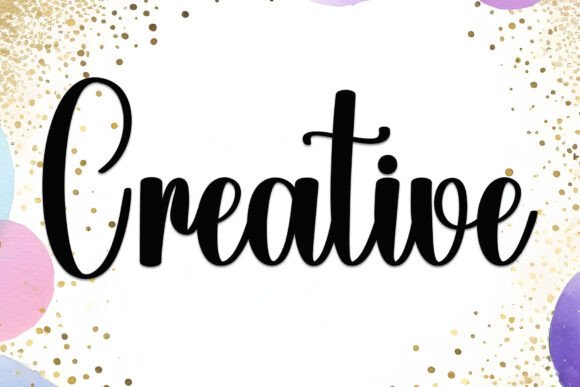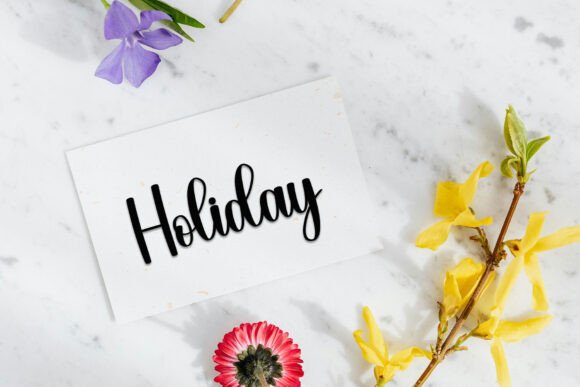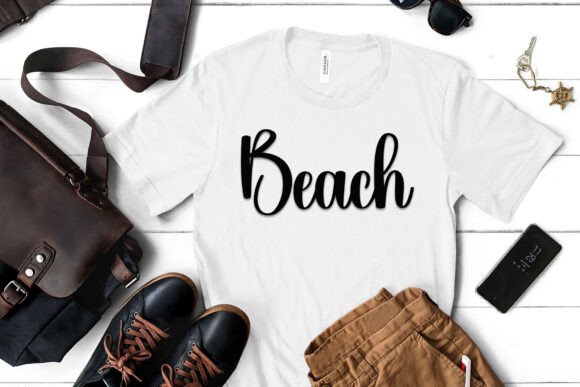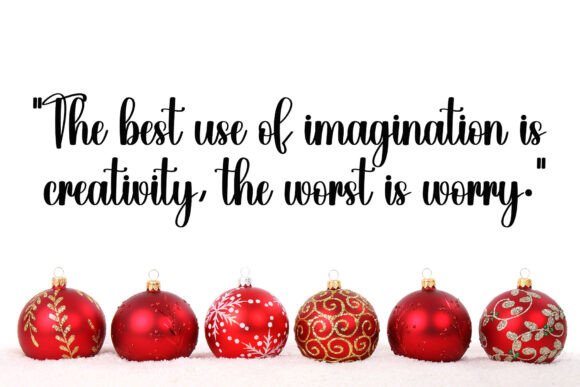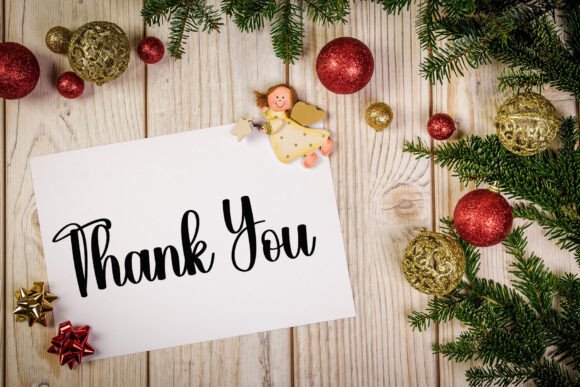
Unleash the Magic of Your Designs
You’re in the middle of a design project, and suddenly, the perfect font pops into your head. It’s whimsical, elegant, and has a touch of magic. You envision a world of possibilities, where your design shines brighter than the brightest Disney light. And, as it turns out, your creative vision can become a reality with the enchanting Disney Font.
This trendy handwritten font is more than just a pretty face; it’s a masterful blend of classic calligraphy and modern charm. With its impeccable form and contemporary atmosphere, the Disney Font is the perfect addition to any design project seeking to add a touch of sophistication and elegance.
Whether you’re a seasoned designer or just starting out, the Disney Font is a valuable asset to your toolkit. Its versatility and timeless charm make it an ideal choice for a wide range of design projects, from branding and marketing materials to digital art and more.
Disney Font Key Features
- Font Family: The Disney Font is a custom-designed font family that includes various weights and styles, including bold, italic, and regular.
- Unique Characteristics: The font features a distinctive, cursive style with a mix of serif and sans-serif elements, giving it a playful and whimsical feel.
Disney Font Review
Overall, I’d say the Disney Font is a fun and whimsical addition to any design project. ✨ The font’s playful curves and rounded edges evoke a sense of nostalgia and wonder, perfect for projects that need a touch of magic.
- ✨ Unique and recognizable design: The Disney Font is instantly recognizable and screams “Disney” – perfect for branding and merchandise.
- ✨ Versatility: The font comes in a range of weights and styles, making it suitable for a variety of design applications, from signage to packaging.
- ✨ High-quality glyphs: The font’s glyphs are well-crafted and consistent, ensuring a professional finish.
- ⚠️ Limited flexibility: The font’s design is quite specific and may not be suitable for more serious or professional projects.
- ⚠️ Limited character set: The font’s character set is limited, which may cause issues for projects that require a broader range of characters.
- ⚠️ Potential overuse: The font’s popularity may lead to overuse, which can make it seem less unique and less effective.
Overall, the Disney Font is a great choice for projects that need a touch of whimsy and nostalgia. While it may have some limitations, its unique design and versatility make it a valuable addition to any designer’s toolkit.
Practical Application Guide: Disney Font
The Disney Font is perfect for creating whimsical and playful designs, such as:
- Children’s party invitations
- Wedding invitations
- Marketing materials
- Personalized gifts
Remember to use the Disney Font sparingly to avoid overwhelming your design. Pair it with other fonts and graphics to create a balanced and visually appealing look.
Alternatives to Disney Font for Designers
Pacifico is a beautiful, elegant script font that is perfect for creating a whimsical and magical atmosphere. It is ideal for use in branding, logos, and typography-based designs. Pacifico is a popular alternative to Disney Font due to its similar cursive style and flowing lines.
Comparison: Pacifico is more versatile and has a wider range of uses, while Disney Font is more associated with children’s entertainment.
Carolyna Pro is a modern, luxurious script font that is perfect for creating high-end and sophisticated designs. It is ideal for use in branding, packaging, and editorial designs. Carolyna Pro is a great alternative to Disney Font due to its elegant and refined style.